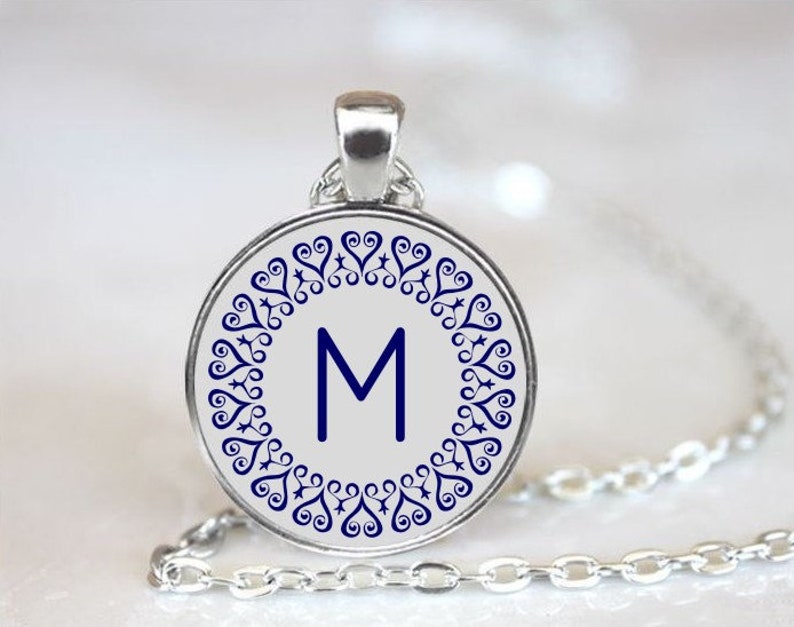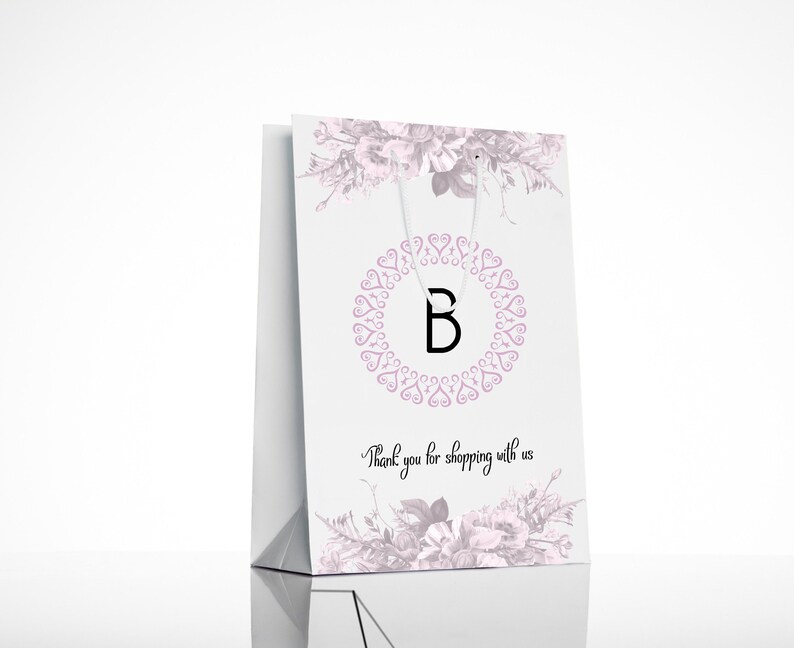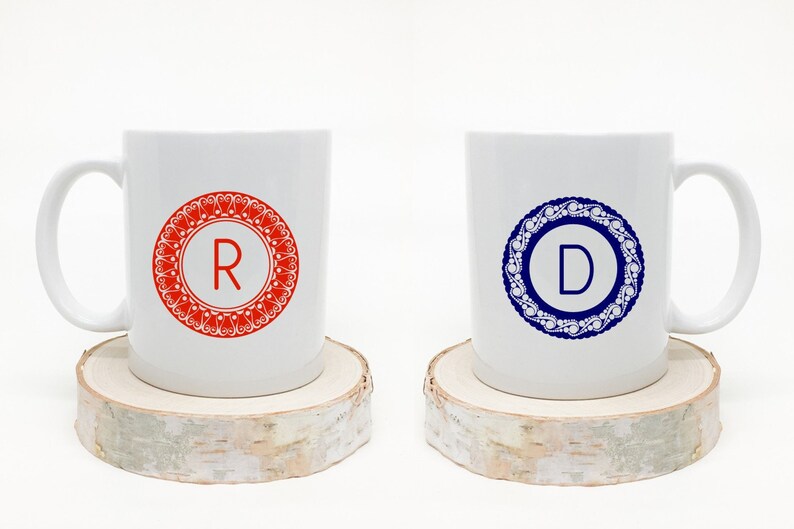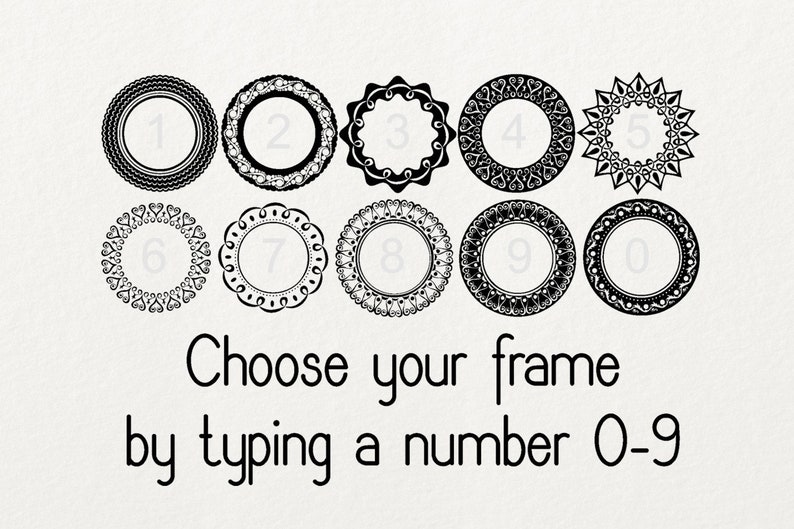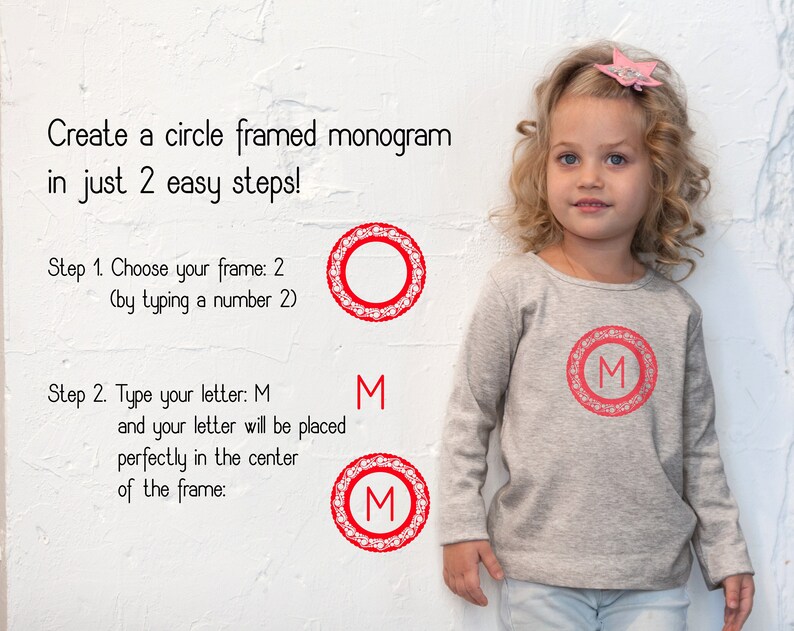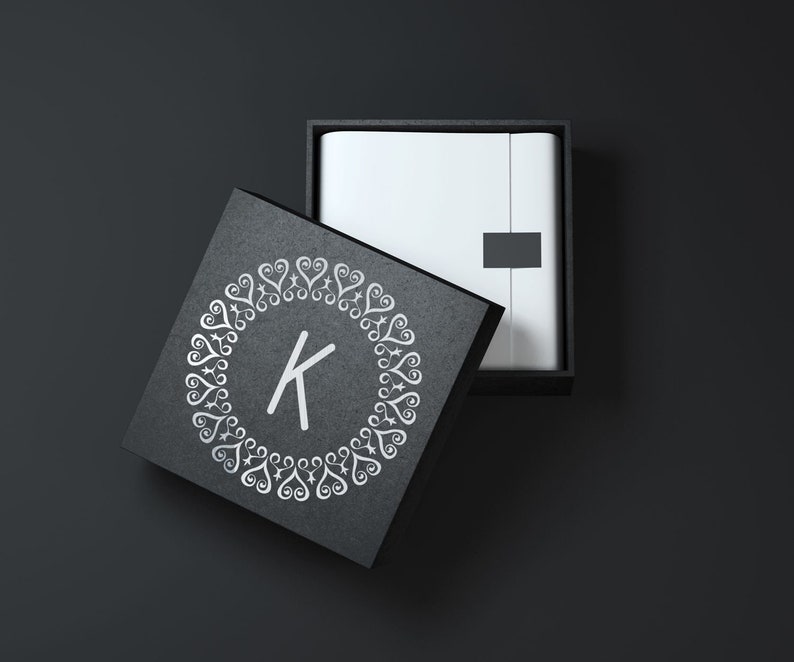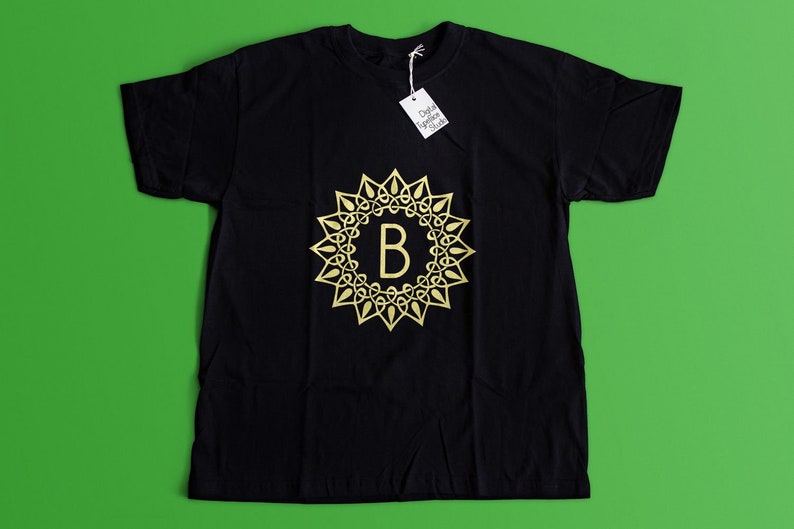
- Character set are as it is shown in the example
With this font you'll be able to create a circle framed monogram in just 2 easy steps!
Step 1. Type a number (choose a number 0-9 to select a frame)
Step 2. Type your letter (without space)
and your letter will be placed perfectly in the center of the frame.
You also can make a very unique monogram by using the individual frame cliparts, with any font you like.